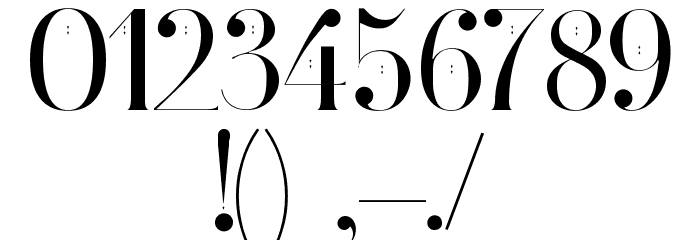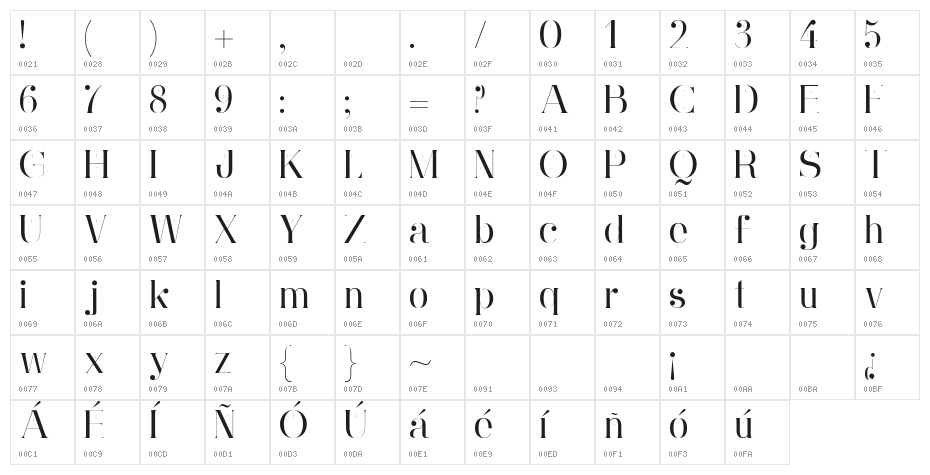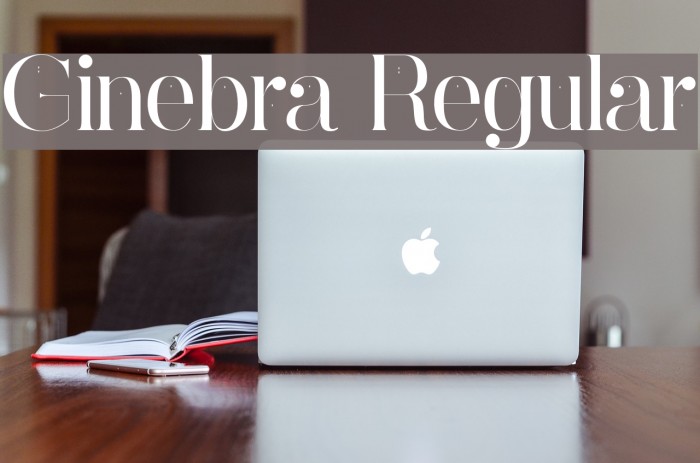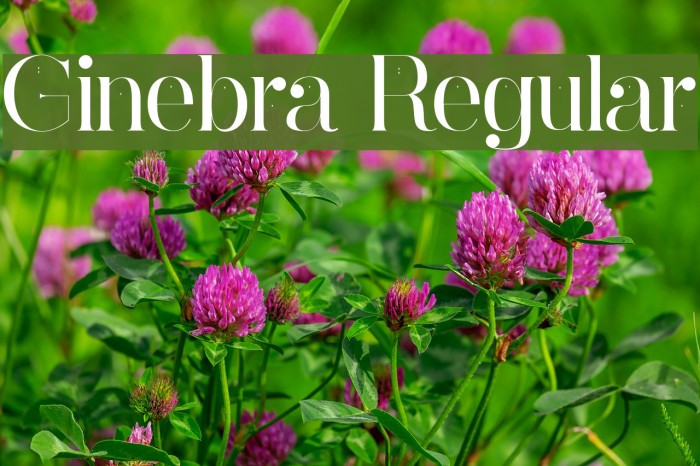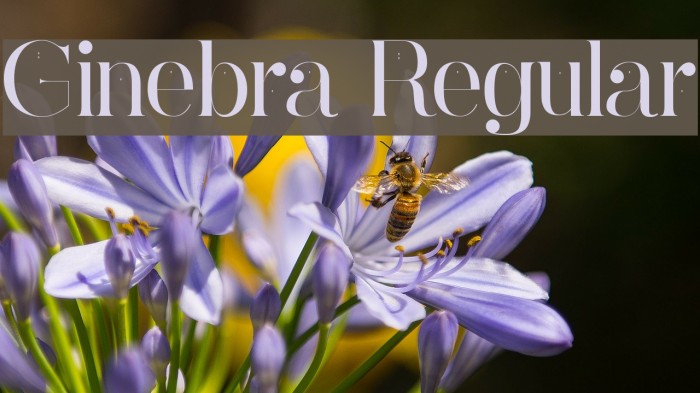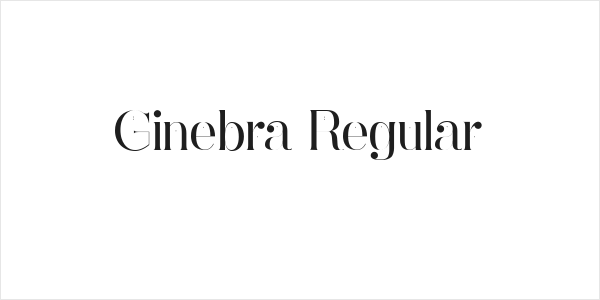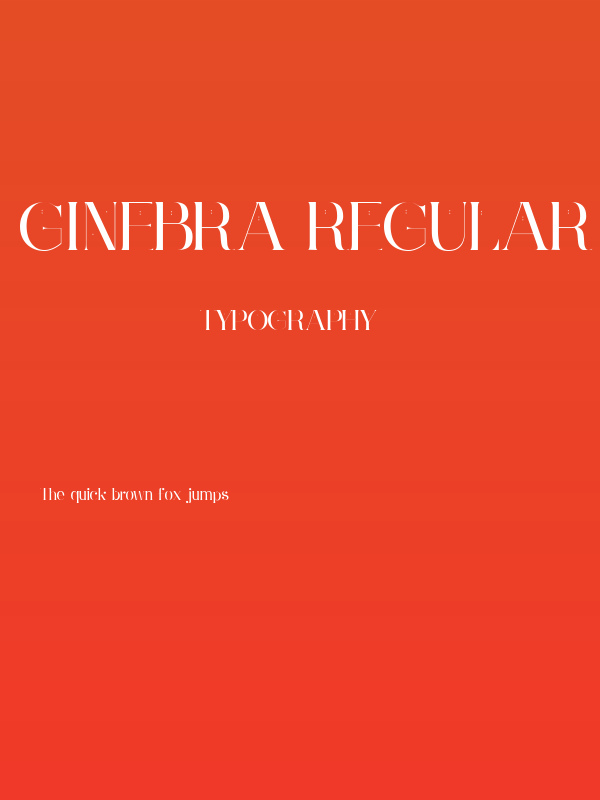
Ginebra Regular Font
Ginebra Regular Description
This font exhibits a modern and elegant style with high contrast between thick and thin strokes, giving it a sophisticated and stylish appearance. The uppercase letters are tall and slender, while the lowercase letters maintain a consistent flow with rounded edges. The numerals are distinctive, featuring unique curves and angles that add to the font's character. Special characters are designed with a flair that complements the overall aesthetic, making it suitable for a variety of creative applications.